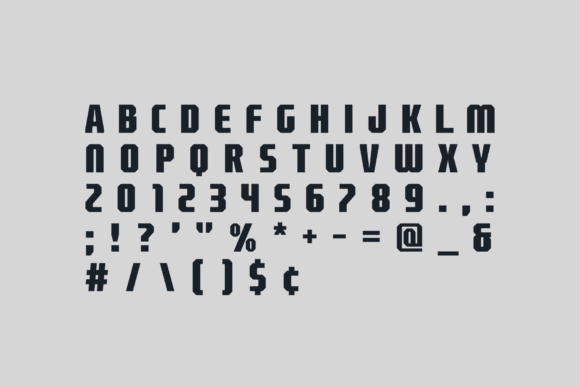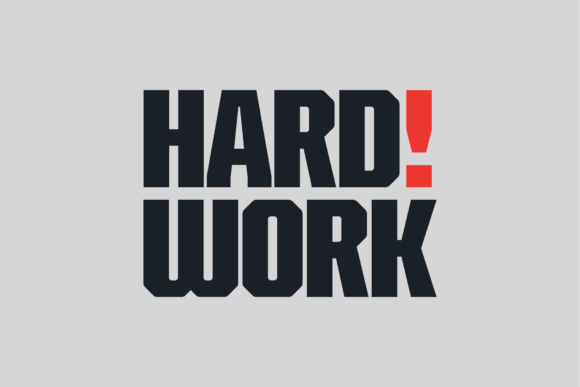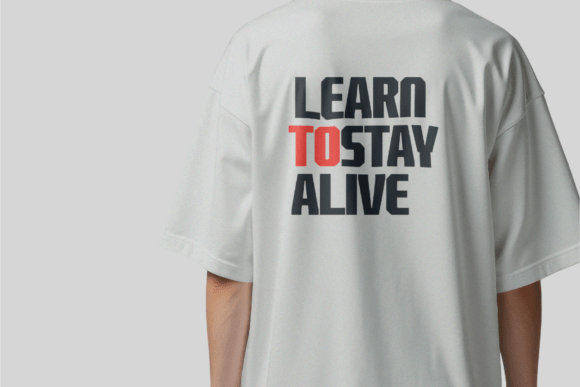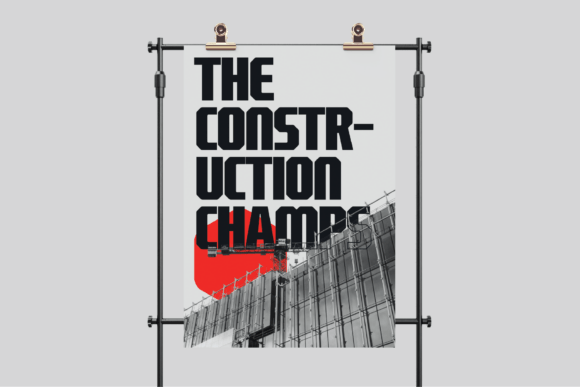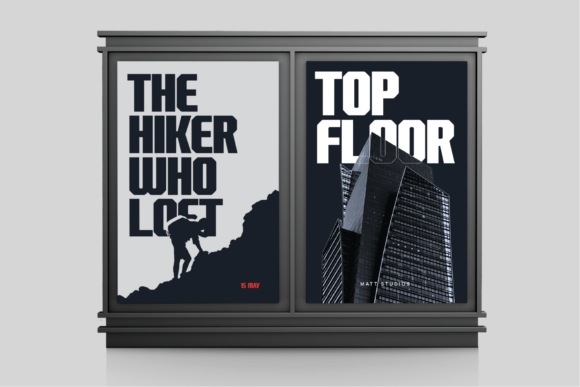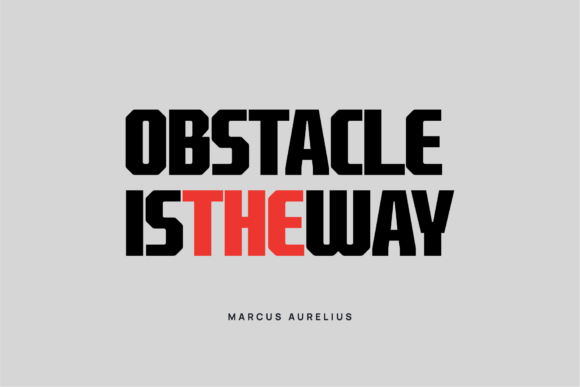
Ared Font: Unleash the Power of Bold, Blocky Typography
In the realm of typography, a font can make or break the visual identity of a brand. For designers and crafters seeking to make a statement, Ared Font is a game-changer. This bold, blocky condensed display font is engineered to deliver high-impact typography that commands attention. Inspired by industrial aesthetics and hexagonal shapes, Ared Font exudes a strong, aggressive visual presence that’s perfect for a wide range of applications.
The Inspiration Behind Ared Font
Ared Font draws its inspiration from the industrial world, where functionality meets raw power. The font’s blocky, condensed design is reminiscent of rugged, hexagonal shapes that evoke a sense of strength and resilience. This brutalist display font is built to stand out, with sharp geometric cuts and powerful proportions that make it a force to be reckoned with in the world of graphic design.
Perfect for High-Impact Designs
Ared Font is specifically designed for high-impact typography, making it an ideal choice for designers and crafters who want to create bold, eye-catching visuals. This blocky condensed font is perfect for a variety of applications, including:
- Logos: Create a lasting impression with a bold, memorable logo that showcases your brand’s personality.
- Apparel: Add a touch of industrial chic to your clothing and accessories with Ared Font’s striking typography.
- Headlines: Grab attention with bold, blocky headlines that cut through the noise.
- Esports Branding: Make a statement in the competitive world of esports with Ared Font’s powerful, aggressive design.
- Gym Graphics: Motivate and inspire with bold, high-energy graphics that showcase your fitness brand’s personality.
- Album Covers: Create a lasting impression with Ared Font’s striking typography on your music album covers.
- Posters: Grab attention with bold, eye-catching posters that showcase your message.
- Packaging: Stand out on store shelves with Ared Font’s bold, blocky design on your product packaging.
- Social Media Content: Elevate your social media presence with Ared Font’s striking typography and bold visuals.
Key Features of Ared Font
Ared Font boasts a range of key features that make it an attractive choice for designers and crafters:
- Bold and Blocky Design: Ared Font’s bold, blocky design makes it perfect for high-impact typography.
- Condensed Proportions: The font’s condensed proportions make it ideal for designs where space is limited.
- Sharp Geometric Cuts: Ared Font’s sharp geometric cuts add a touch of industrial chic to your designs.
- Industrial Aesthetic: The font’s industrial aesthetic makes it perfect for designs that require a strong, aggressive visual presence.
Why Choose Ared Font?
In a world where typography plays a crucial role in visual identity, Ared Font stands out as a bold, attention-grabbing choice. Here are just a few reasons why designers and crafters should choose Ared Font:
- Versatility: Ared Font is perfect for a wide range of applications, from logos and apparel to headlines and social media content.
- Impact: The font’s bold, blocky design makes it perfect for high-impact typography that commands attention.
- Uniqueness: Ared Font’s industrial aesthetic and sharp geometric cuts make it a unique addition to any design project.
Ared Font is a powerful, bold, and blocky condensed display font that’s perfect for designers and crafters seeking to make a statement. With its industrial aesthetic, sharp geometric cuts, and powerful proportions, Ared Font is built to stand out in the world of graphic design. Whether you’re creating logos, apparel, headlines, or social media content, Ared Font is the perfect choice for high-impact typography that commands attention.